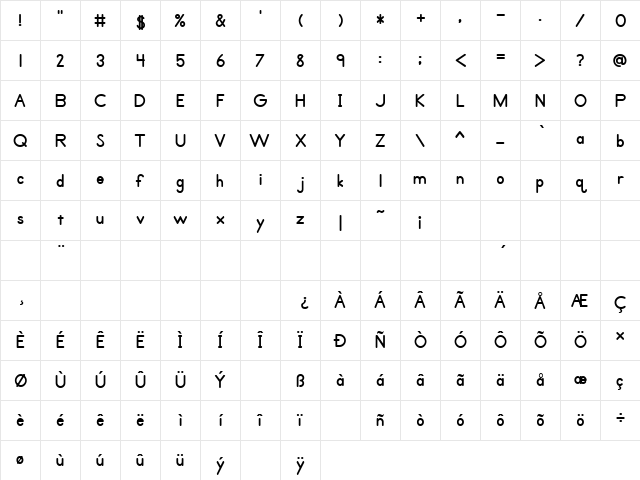
Complete Primer Print Bold glyph index. Displaying only characters natively supported by Primer Print Bold font.
Primer Print is a composed and adaptable typeface that performs quietly and consistently across a wide range of design contexts. Its bold stroke weight gives it real presence on the page.